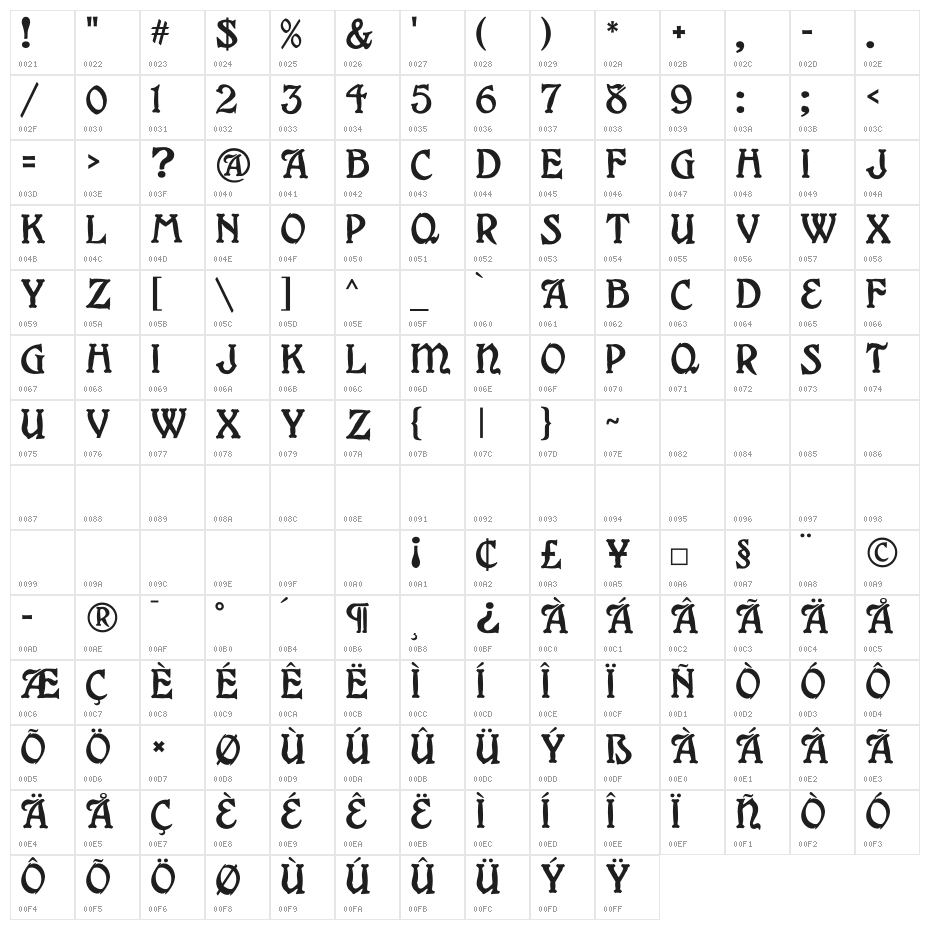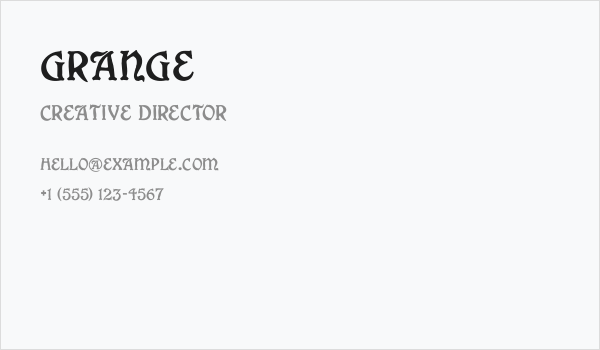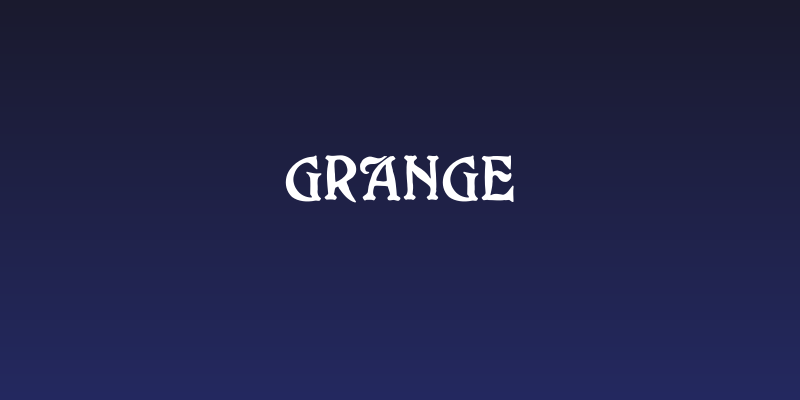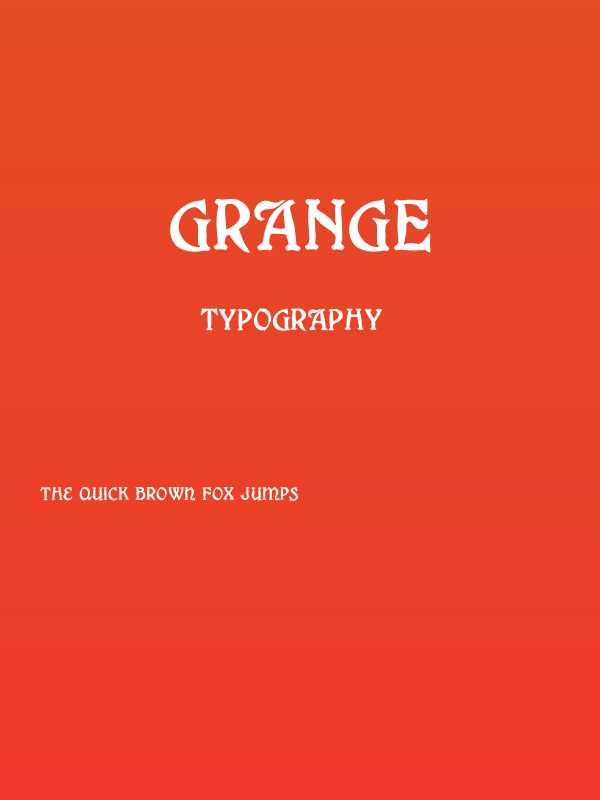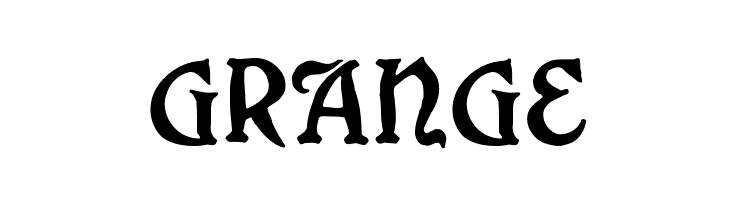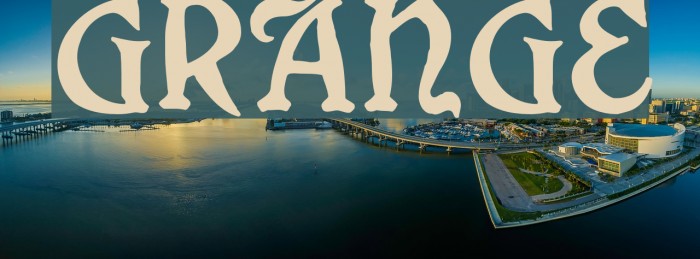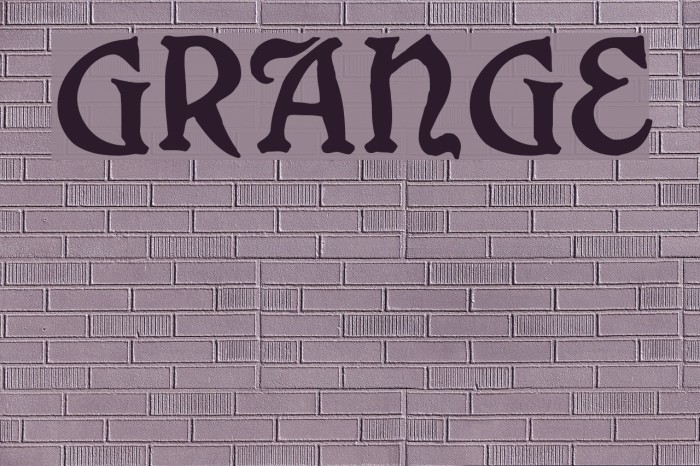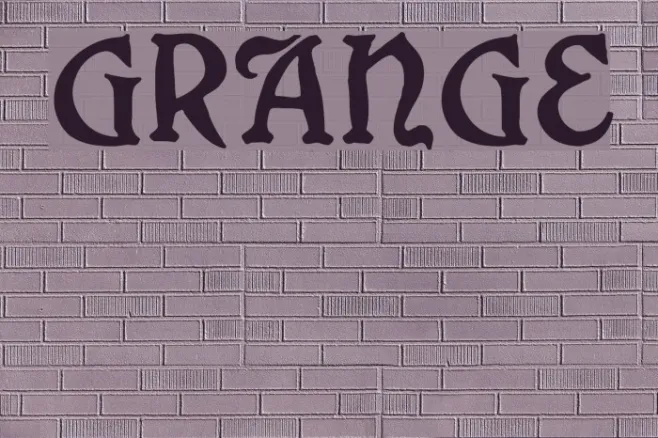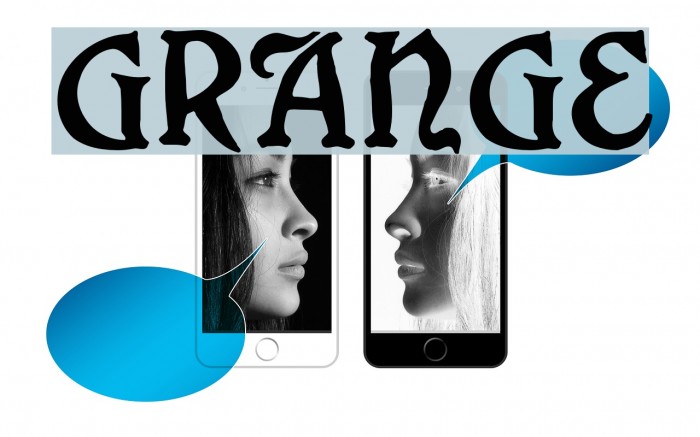
Grange Font
Grange Description
This font features a bold and dramatic style with a distinct medieval flair. The characters are characterized by their thick, angular strokes and sharp serifs, giving them a strong and authoritative presence. The uppercase letters are particularly striking, with a uniform height and consistent weight that enhances their readability. The lowercase letters maintain the same boldness, with unique curves and angles that add to the font's overall character. Numbers and special characters are equally bold, ensuring consistency across all text elements. This font's design is reminiscent of historical scripts, making it ideal for projects that require a touch of antiquity and elegance.
| Overall Style | Vintage |
| Use Case | Headlines, Logos, Decorative text |
| Proposed Projects | Ideal for historical-themed designs, book covers, posters, and branding that requires a vintage or medieval touch. |